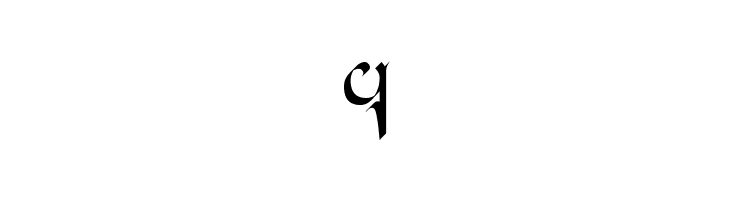
Font by typotopia. For commercial use please contact the owner. ( Fonts by Typotopia - Typotopia.co - Personal Use Only, for Commercial Use, please contact us ) A bold, decorative font with intricate detailing and elegant flourishes. Download 269 Downloads@WebFont
( Fonts by Typotopia Studio - Personal-use only. For commercial use please contact owner. ) A bold, decorative font with intricate detailing and high contrast. Download 47 Downloads@WebFont
( Fonts by a Max Infeld - XEROGRAPHER FONTS - xerographer.blogspot.com . Personal-use only. For commercial use please contact owner. ) A playful, vintage-style font with bold outlines and dotted textures. Download 171 Downloads@WebFont
( Fonts by Manfred Klein. Free for private and charity use. Free for commercial with donation to organizations ) A whimsical, circus-themed font with characters in starburst shapes. Download 171 Downloads@WebFont
( Fonts by Aurelia Hadinata ) An artistic and decorative font with intricate detailing and vintage flair. Download 149 Downloads@WebFont
( Fonts by Wahyu Eka Prasetya - wepfont.com - Personal-use only. For commercial use please contact owner. ) A bold, textured, and expressive handwritten font with a brush-like appearance. Download 54 Downloads@WebFont
( Fonts by Eva Barabasne Olasz ) A whimsical, decorative font with playful swirls and curls. Download 464 Downloads@WebFont
( Catharsis - www.cinga.ch/fonts.html ) A geometric and angular font with a futuristic and abstract style. Download 46 Downloads@WebFont
( Catharsis - www.cinga.ch/fonts.html ) An intricate, calligraphic font with bold, angular strokes and decorative flourishes. Download 78 Downloads@WebFont